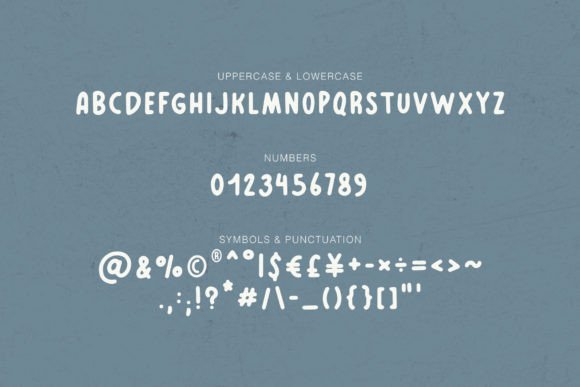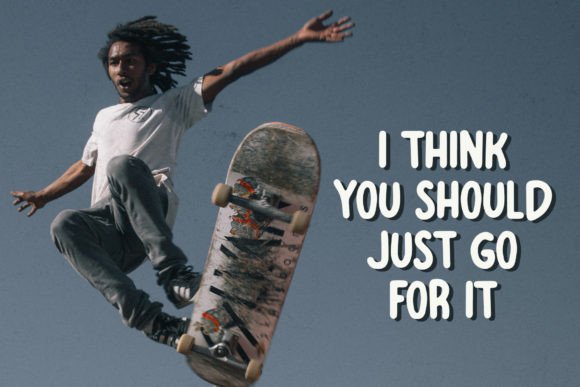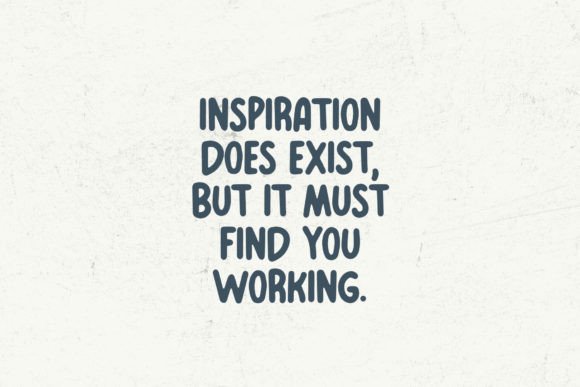
Introduction to My Marker Font
My Marker is a fun and casual handwritten font.
Its minimalist and friendly vibe can easily match your favorite designs such as book covers, magazines, social media posts, invitations, and so much more .
Why Choose My Marker Font?
My Marker Font offers exceptional quality and versatility, making it a valuable addition to your design toolkit. Whether you’re creating for personal projects or commercial use, My Marker Font delivers professional results.